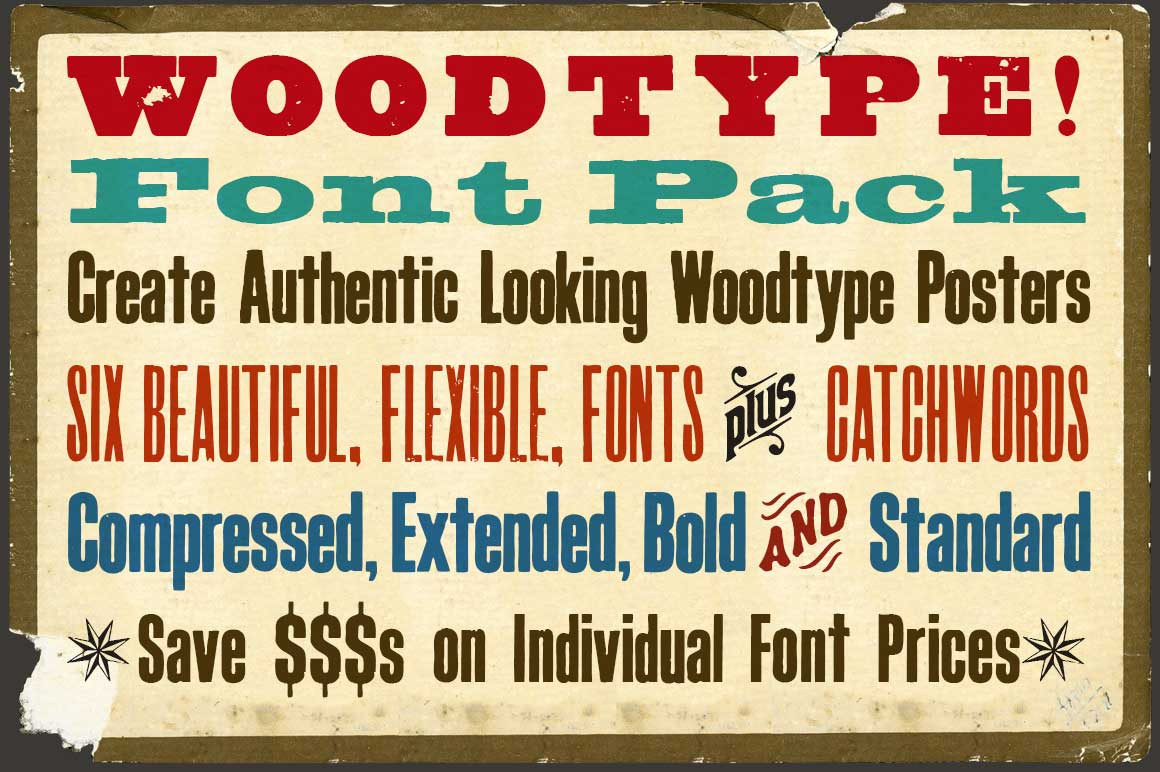
Woodblock Font Pack
A collection of fonts and catchwords that will allow you to create authentic looking Victorian and western Retro posters. Includes: Crepello, Crepello Eroded, Koyli Compressed, Meld Bold Extended, Pinza Bold Condensed and Deltic Catchwords.